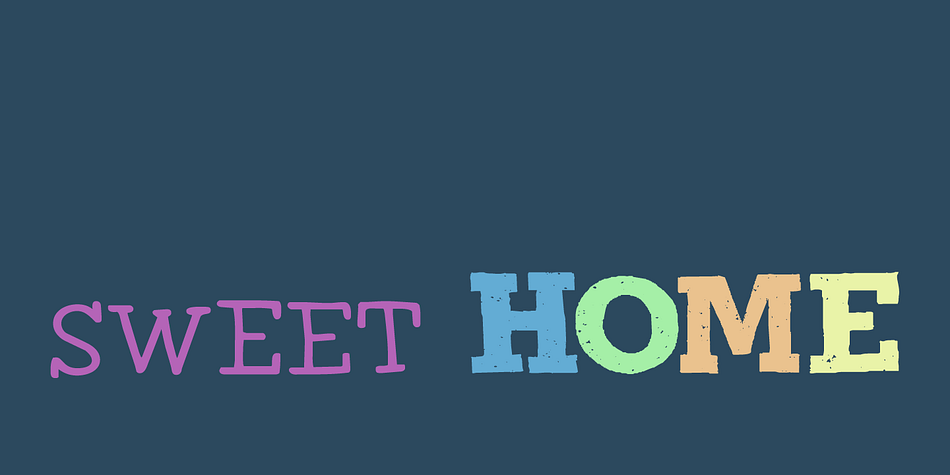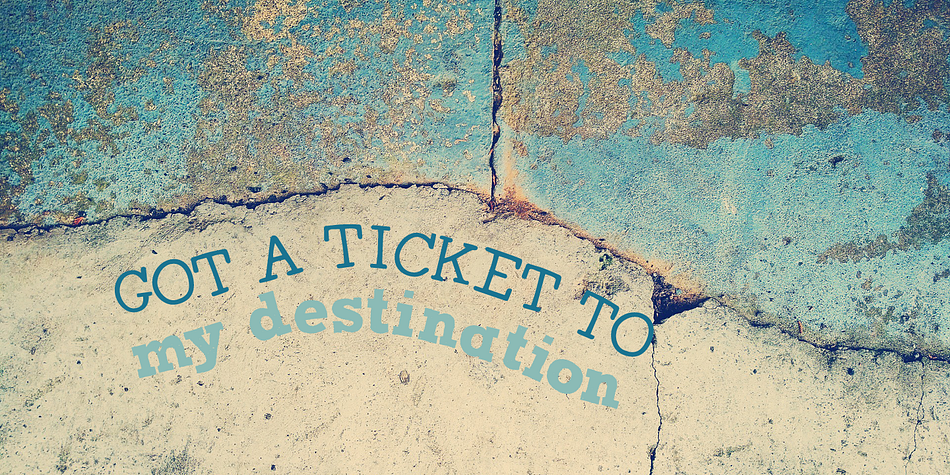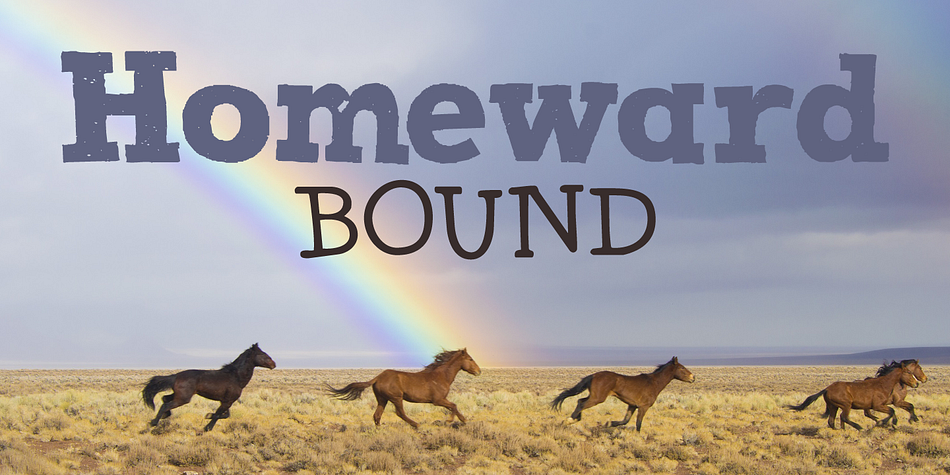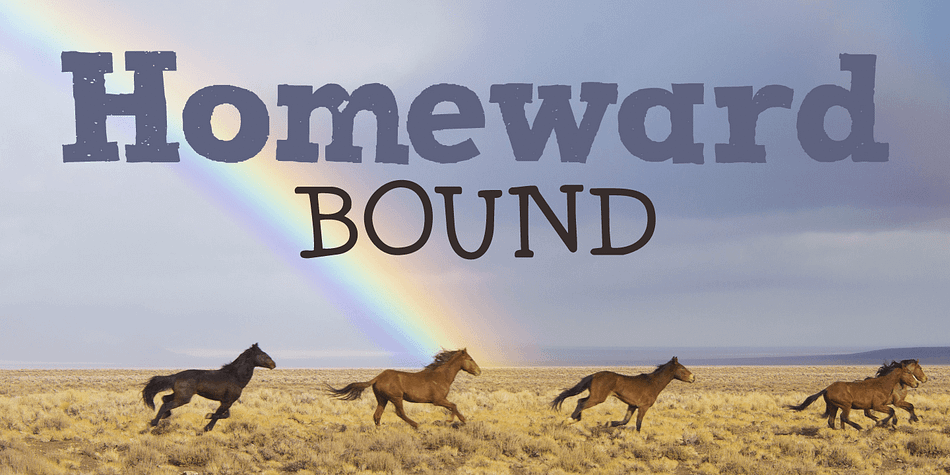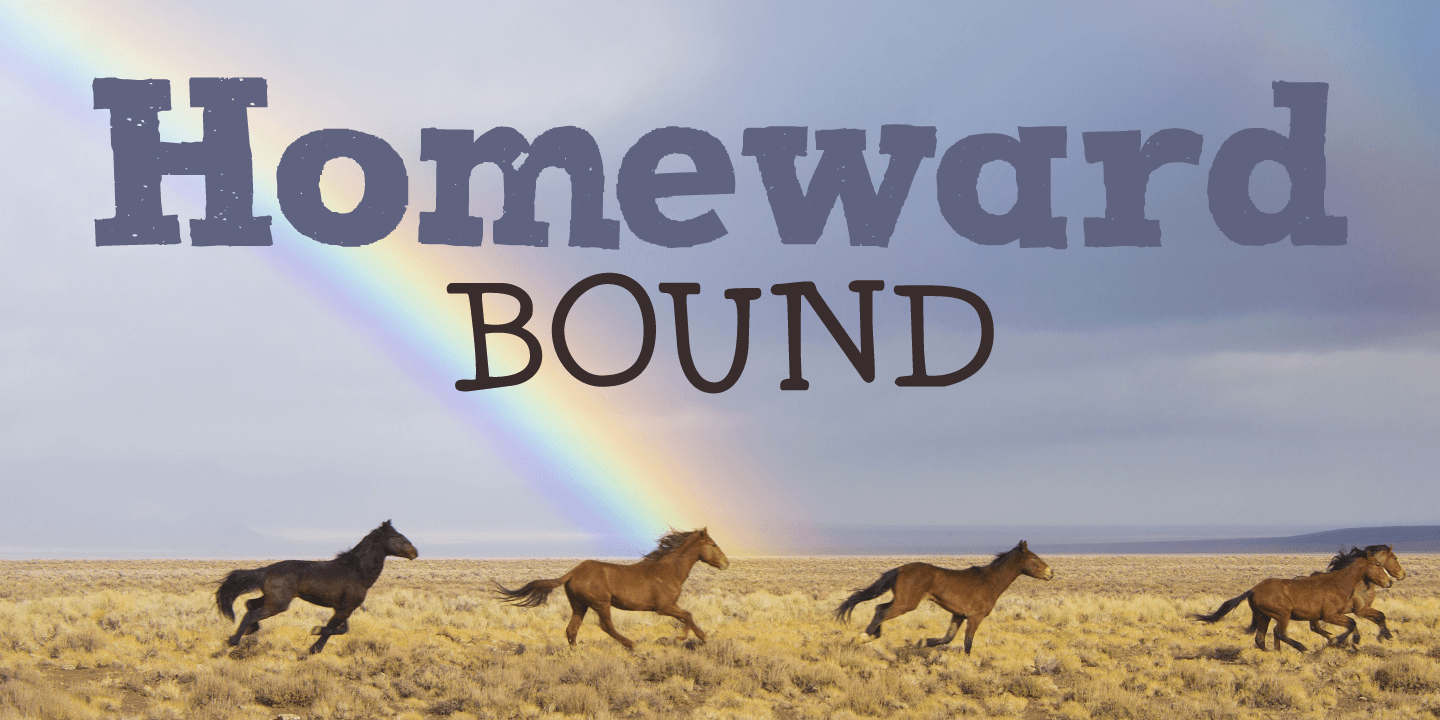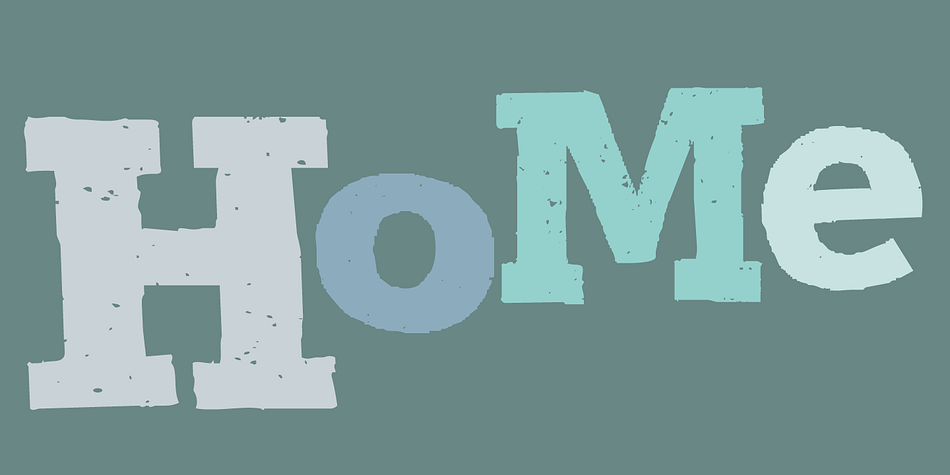
Designed by David Kerkhoff, Homeward Bound is a hand display font family. This typeface has four styles and was published by Hanoded.
Homeward Bound is a fat, grungy slab serif font - all handmade and inspired by a well known 1934 font. Together with sidekick Homeward Bound II, this baby will lighten up your day, bring you your newspaper and do your dishes to boot.
Well, that may not be an accurate description of Homeward Bound’s abilities, but I am sure it will make your work stand out, giving it that ‘handmade eroded vintage’ look.